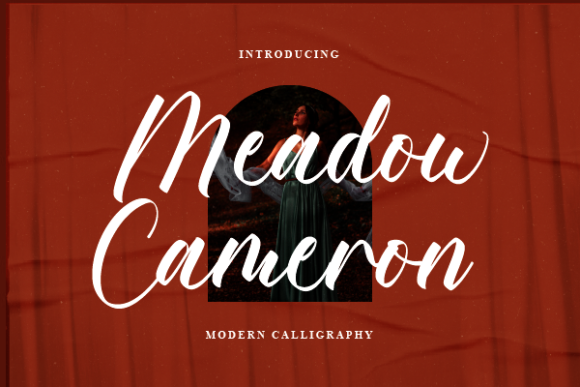
Witness the beauty of Meadow Cameron, a script font that epitomizes elegance and sophistication. Its delicate strokes and carefully crafted characters exude a charm that will elevate your designs to new heights.
Step into a world of creative possibilities with Meadow Cameron. Its versatile nature makes it the perfect choice for a wide range of projects, from stunning logos and captivating social media posts to enchanting invitations and heartfelt greeting cards. Allow your imagination to soar as you explore the endless possibilities that await you with this remarkable font.
With Meadow Cameron as your trusted companion, your designs will blossom into works of art. Its enchanting curves and graceful lines will add a touch of magic to every word you write. Experience the joy of crafting designs that speak to the heart and leave a lasting impression on all who encounter them.
Created by the talented team at Circle Studio, Meadow Cameron is a testament to their dedication to excellence. Each letter has been meticulously designed to ensure perfect harmony and balance. The result is a font that is both visually appealing and highly functional, making it an indispensable tool for any creative professional.
Don't settle for ordinary fonts that blend into the background. Embrace the uniqueness of Meadow Cameron and watch as your designs transform into captivating masterpieces. Its distinct style will set your work apart from the crowd, leaving a lasting impression that lingers in the minds of your audience.